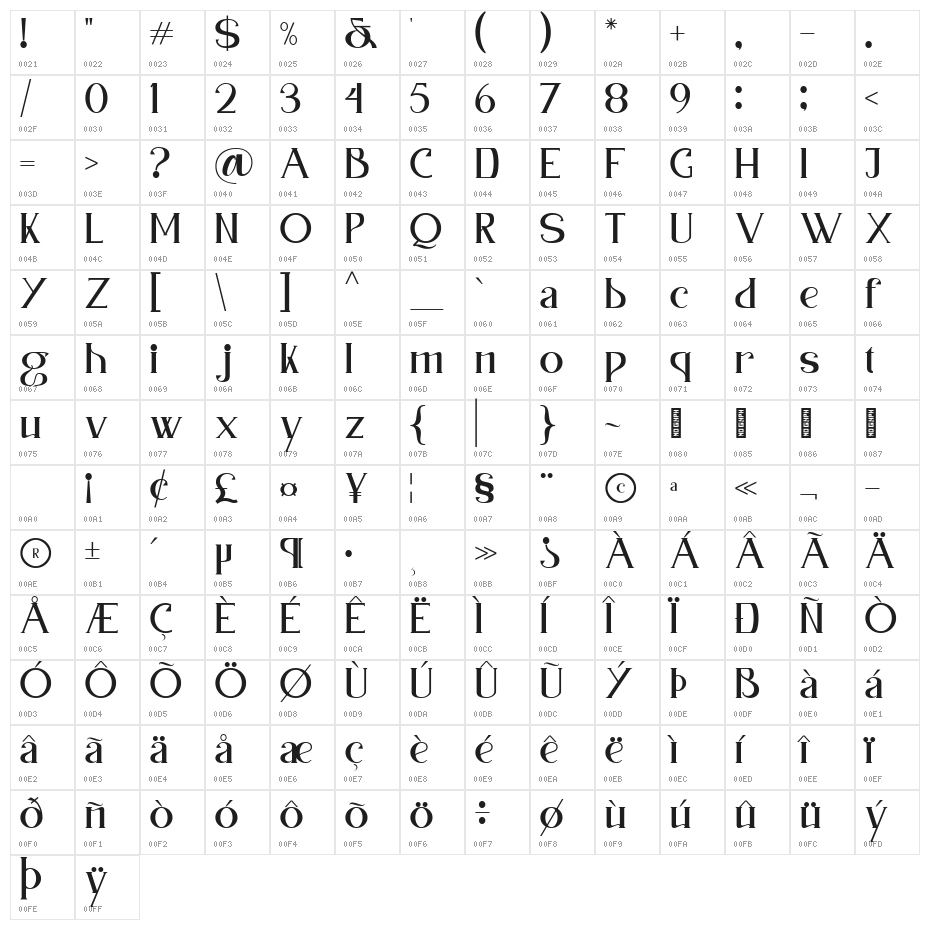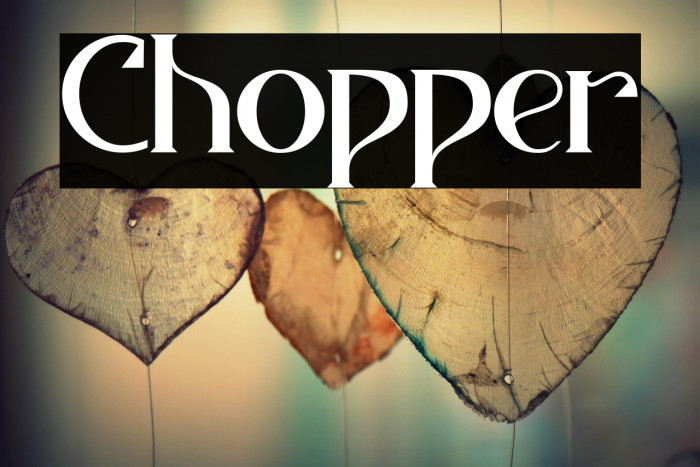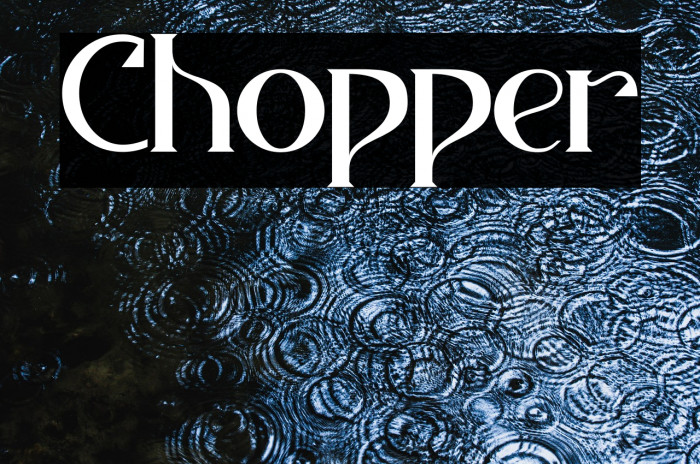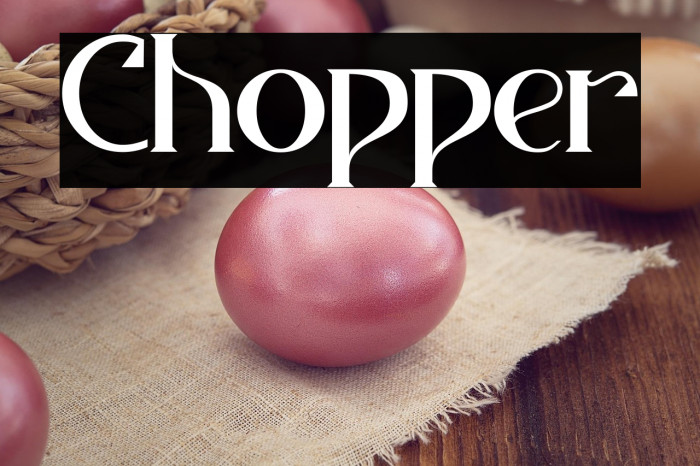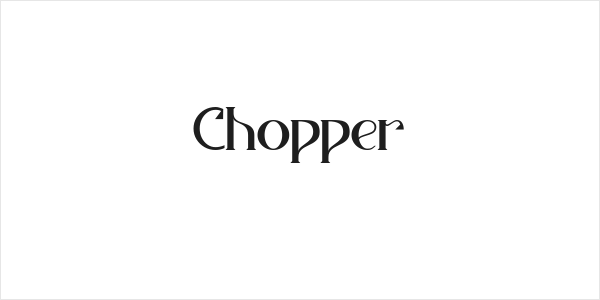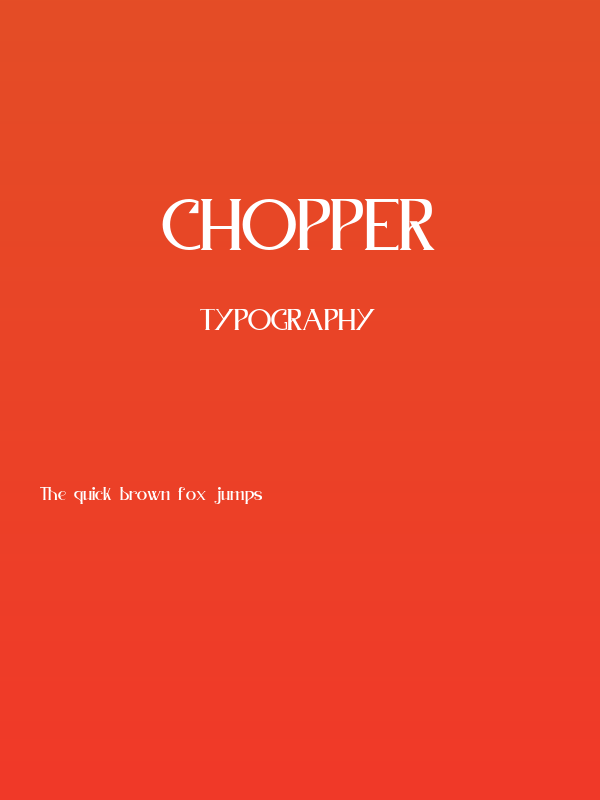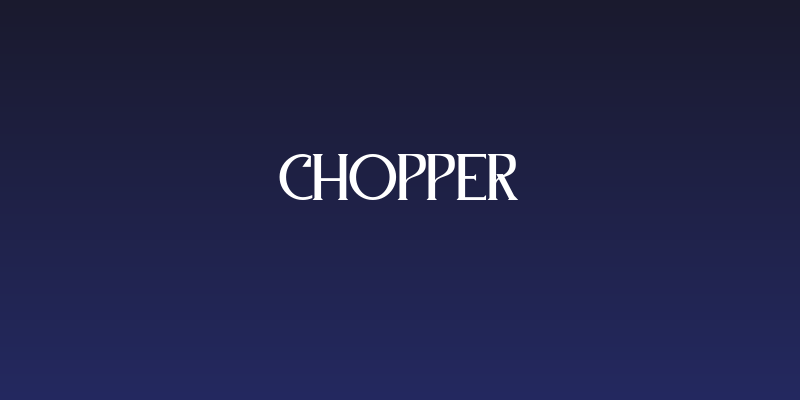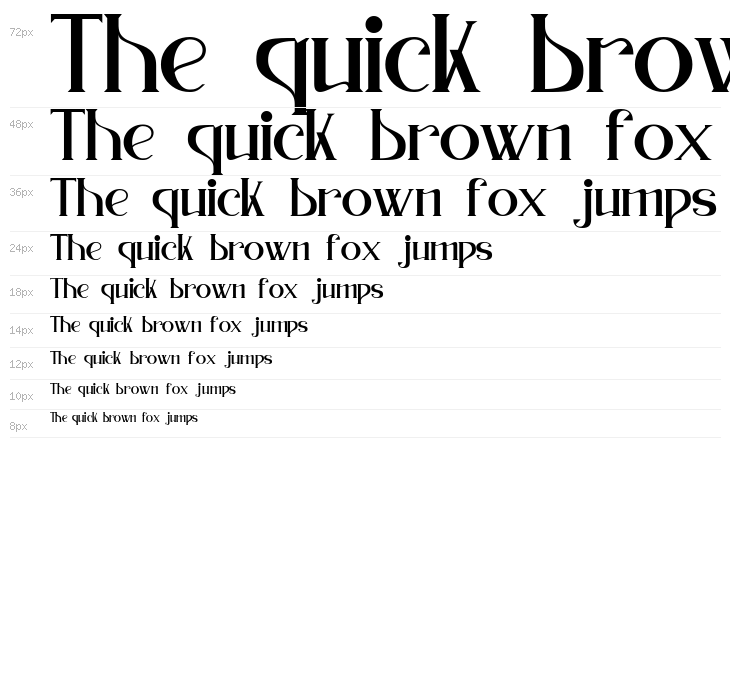
Chopper Font
Chopper Description
This font features a unique blend of modern and classic elements, characterized by its sharp serifs and elegant curves. The uppercase letters are bold and commanding, with a slight flair that adds a touch of sophistication. The lowercase letters maintain a consistent style, with distinctive loops and strokes that enhance readability. Numbers are designed with a balanced weight, ensuring clarity in both digital and print formats. Special characters are crafted with precision, maintaining the overall aesthetic of the font. This typeface is versatile, suitable for a variety of design projects.
| Use Case | Headlines, Logos, Editorial Design |
| Proposed Projects | Ideal for branding, editorial design, luxury packaging, and high-end advertising. |